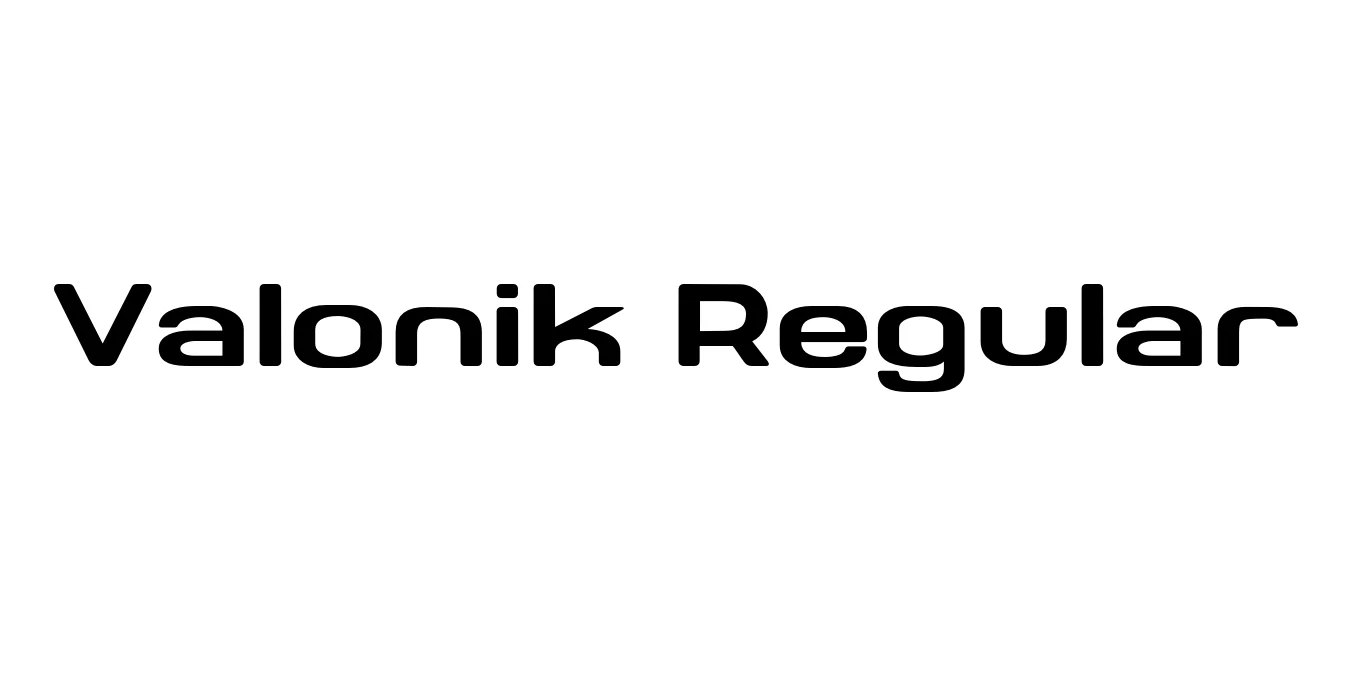
Valonik Regular
Designed by Ahmad Ramzi Fahruddin (Arterrigel)
| Font Name | Valonik |
| Designer | Ahmad Ramzi Fahruddin (Arterrigel) |
Valonik Regular is a contemporary sans-serif typeface characterized by its clean lines and geometric construction. It was designed to bridge the gap between technical precision and approachable aesthetics, making it a versatile tool for modern branding and digital interface design. The font features balanced proportions and a high x-height, ensuring legibility across various screen sizes and print media.
Developed with a focus on minimalism and clarity, this typeface excels in professional environments where a sophisticated yet neutral tone is required. Its subtle curves and sharp terminals provide a unique character that distinguishes it from more traditional neo-grotesque fonts. Whether used for body text or large-scale headlines, Valonik Regular maintains a polished look that enhances the overall visual hierarchy of any project.
Valonik Regular Best Uses
Ideal for logo design and corporate identity systems.
Highly readable for user interfaces and digital content.
Excellent for magazine layouts and professional reports.
Effective for clean and impactful marketing materials.